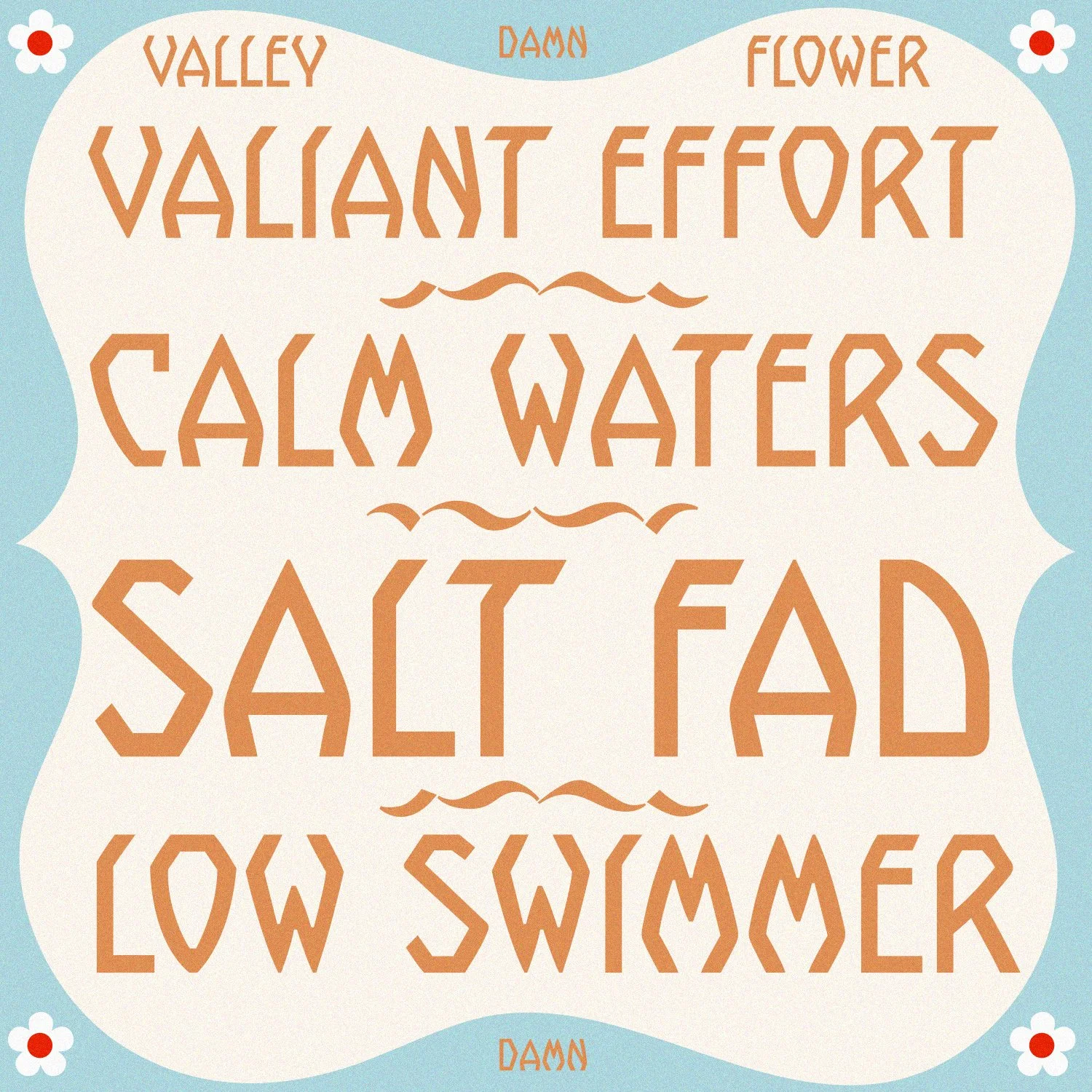
Valley Flower is inspired by the lettering of a 1910 Kerry Mills song sheet bearing the same name, Valley Flower captures the essence of nature and the arrival of spring. This fun and funky sans serif typeface comes in three weights and features occasional sharp bends reminiscent of wood-carved signs found along trails and campsites. Its standout characteristic is the slight bend to the right at the top of most glyphs, which gives the font a unique personality. However, it's missing one thing—you!
These letters pay tribute to the feelings evoked by the Dolomites and the Alps. As I built this typeface, I’ve been enjoying the way the fresh air smells after a new rain, the flowing streams, the longer days, the sun's gentle kiss, and the valley flowers.
Valley Flower is inspired by the lettering of a 1910 Kerry Mills song sheet bearing the same name, Valley Flower captures the essence of nature and the arrival of spring. This fun and funky sans serif typeface comes in three weights and features occasional sharp bends reminiscent of wood-carved signs found along trails and campsites. Its standout characteristic is the slight bend to the right at the top of most glyphs, which gives the font a unique personality. However, it's missing one thing—you!
These letters pay tribute to the feelings evoked by the Dolomites and the Alps. As I built this typeface, I’ve been enjoying the way the fresh air smells after a new rain, the flowing streams, the longer days, the sun's gentle kiss, and the valley flowers.